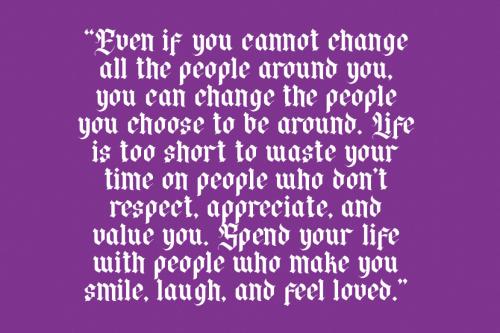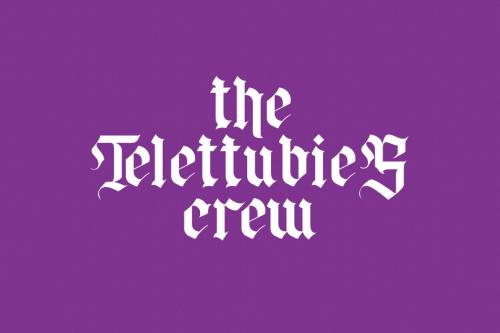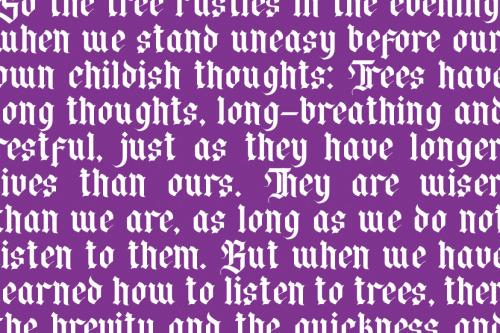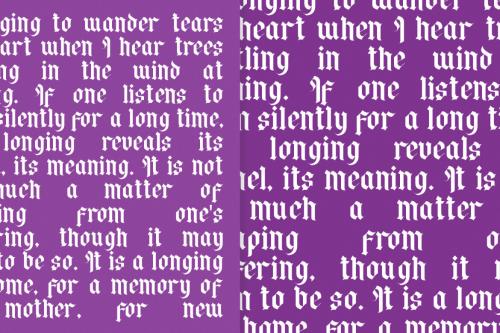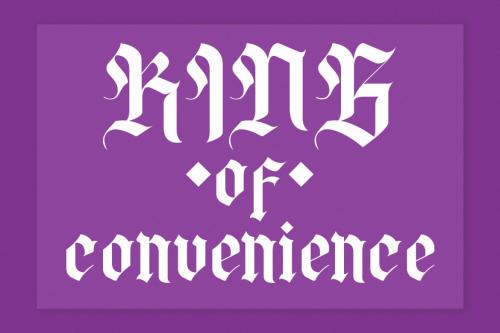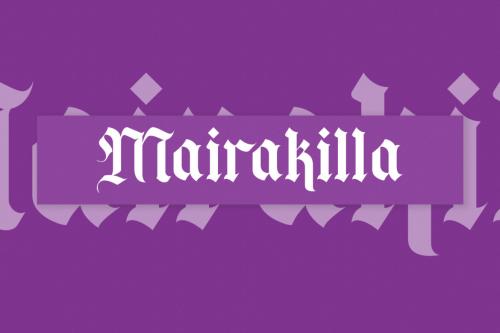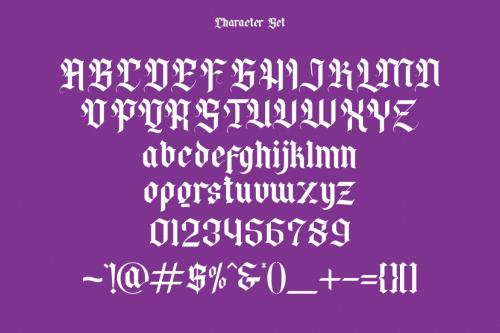
Franchek is a flourish fancy blackletter display font. With medium high contrast stroke, fun character with a bit of ligatures and alternates. To give you an extra creative work. Franchek font support multilingual more than 100+ language. This font is good for logo design, Social media, Movie Titles, Books Titles, a short text even a long text letter and good for your secondary text font with sans or serif. Make a stunning work with Franchek font.